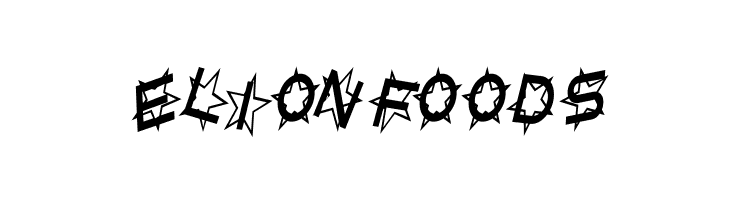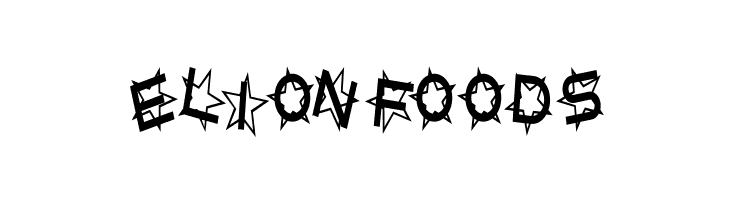
A bold, playful outline font with a cartoonish and energetic style.
A bold, playful font with a shadow effect and cartoonish style.
A bold, playful font with rounded, exaggerated shapes and a whimsical style.
A bold, rounded, and playful font with a graffiti-like style.
A playful, bold handwritten font with smooth curves and consistent height.
An elegant, flowing script font with an italicized slant and thin, elongated characters.
A playful and romantic cursive script font with elegant, flowing strokes.
A dynamic, angular font with a modern, edgy style.
A dynamic and expressive handwritten font with fluid strokes.
A bold, dynamic script font with interconnected characters and a modern vintage charm.
A whimsical, elegant script font with playful loops and intricate curls.
A bold, handwritten-style font with a dynamic and playful appearance.
A fluid and elegant script font with natural handwriting flow.
A modern, handwritten script font with fluid, elegant strokes.
A modern, geometric font with rounded edges and a tubular design.
A modern, hollow, geometric font with outlined letterforms.
A modern, geometric font with clean lines and rounded corners, offering a futuristic and minimalistic style.
A futuristic, expanded, semi-italic font with a cosmic pattern.
A playful, bold handwritten font with smooth curves and rounded edges.
A bold, brushstroke-style font with an energetic and artistic flair.
A bold, playful script font with flowing cursive letters.
A fluid and elegant script font with interconnected letters and a handwritten style.
A bold, elegant script font with flowing, interconnected characters.
A graceful script font with fluid, connected strokes and a light weight.
A festive, decorative font with playful star and snowflake accents.
A dynamic and elegant script font with flowing curves and bold strokes.
A playful, handwritten font with a bold, rounded style.
A lively, expressive handwritten font with fluid strokes and artistic flair.
A flowing, cursive script font with a handwritten style.
A futuristic, expanded, semi-italic font with a cosmic texture.
A bold, space-themed font with a textured, cosmic appearance.
A vintage typewriter-style font with a distressed, nostalgic appearance.
A playful, handwritten font with a casual and dynamic style.
A bold, playful font with rounded, bubbly characters ideal for creative projects.